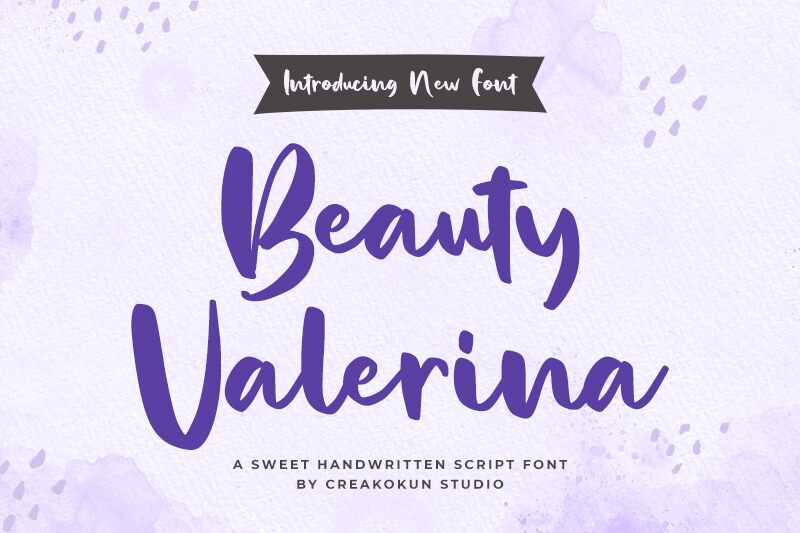
Beauty Valerina is a sweet, handwritten font crafted by M Arif Dwi Prasetyo & Eko Nurcahyo. Its bold weight makes it perfect for crafting creative designs, logos, quotes and invitations. It's also suitable for branding projects and social media posts.
Beauty Valerina